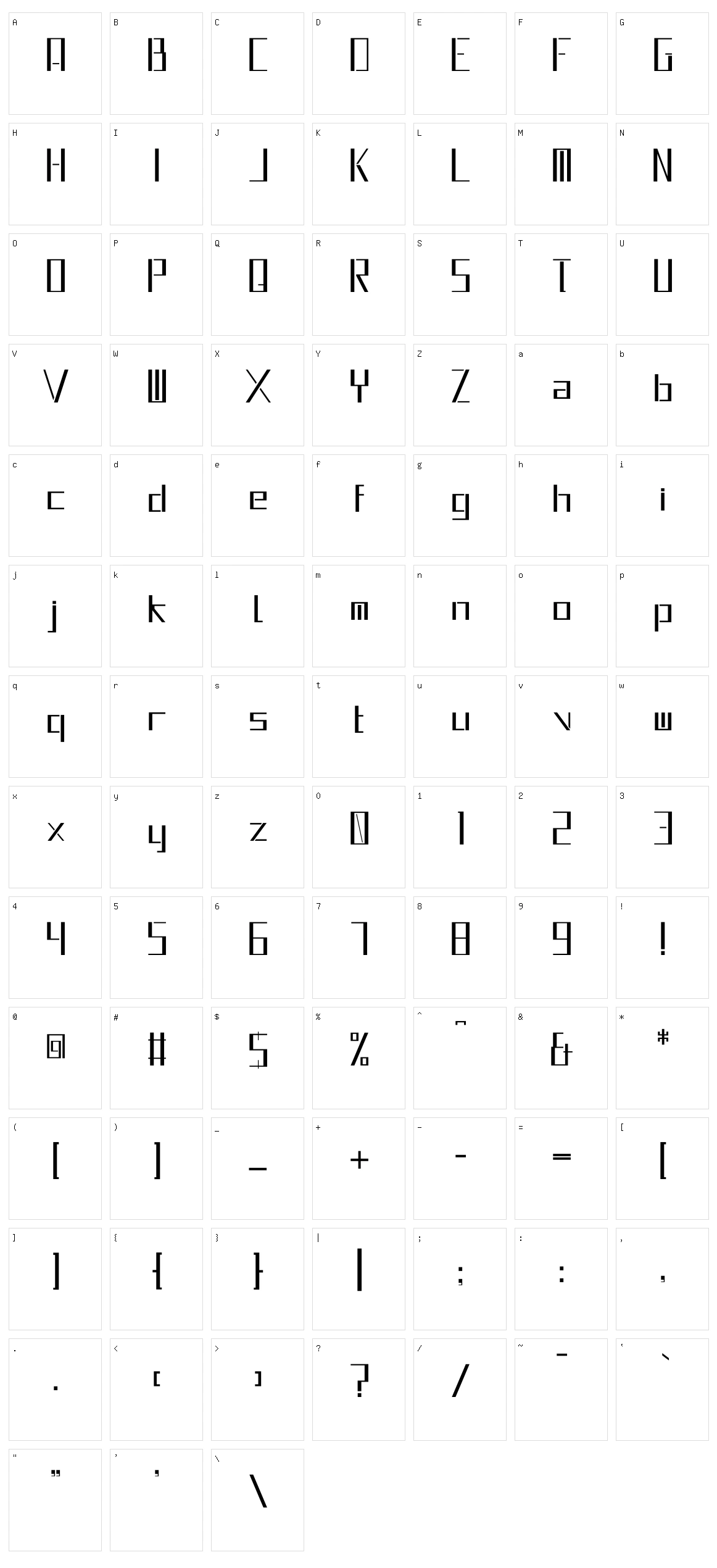
HighTech...ish
HIGHTECH...ISH
FREE modern/futuristic sans serif font
HighTech...ish (Regular) is NOT an entirely original work. It's based on a font I used in a computer game I made around 2008. I no longer own the original font, I can't remember what it was called and it seems to have disappeared completely from the Internet (and believe me, I spent a hell of a lot of time looking), so I tried to remake it myself, using screenshots of the game as the basis to draw some of the characters.
These are the characters contained in the screenshots in high quality (i.e. the ones that look nearly identical to the original font):
- capital letters except D, J, K, Q, V, Y, Z
- lowercase A, I, N, P, T (good quality)
And these were also featured in the screenshots, but in poor quality (roughly 16 x 16 pixels in size), so redrawing them involved a bit of guesswork:
- capital Y
- lowercase letters except B, H, J, Q, V, X, Y, Z
So, those letters look almost identical to the original typeface. The other letters, as well as numbers, portuguese/spanish/french/german support characters, punctuation signs and other miscellaneous glyphs were made from scratch, as well as the "Pixelated" and "Blocky" variants of the font. I also made several improvements to some of the original characters, especially the 16x16 pixel ones.
All in all, I think it's fair to say HighTech...ish is a mostly original work, and I'm very proud of how it looks as a whole. However, I do not wish to rip off anyone's work - in fact, I am still *very* interested in finding the old typeface I used in my game. So, if you know what it is and/or where I can find it, please contact me using the email provided below.